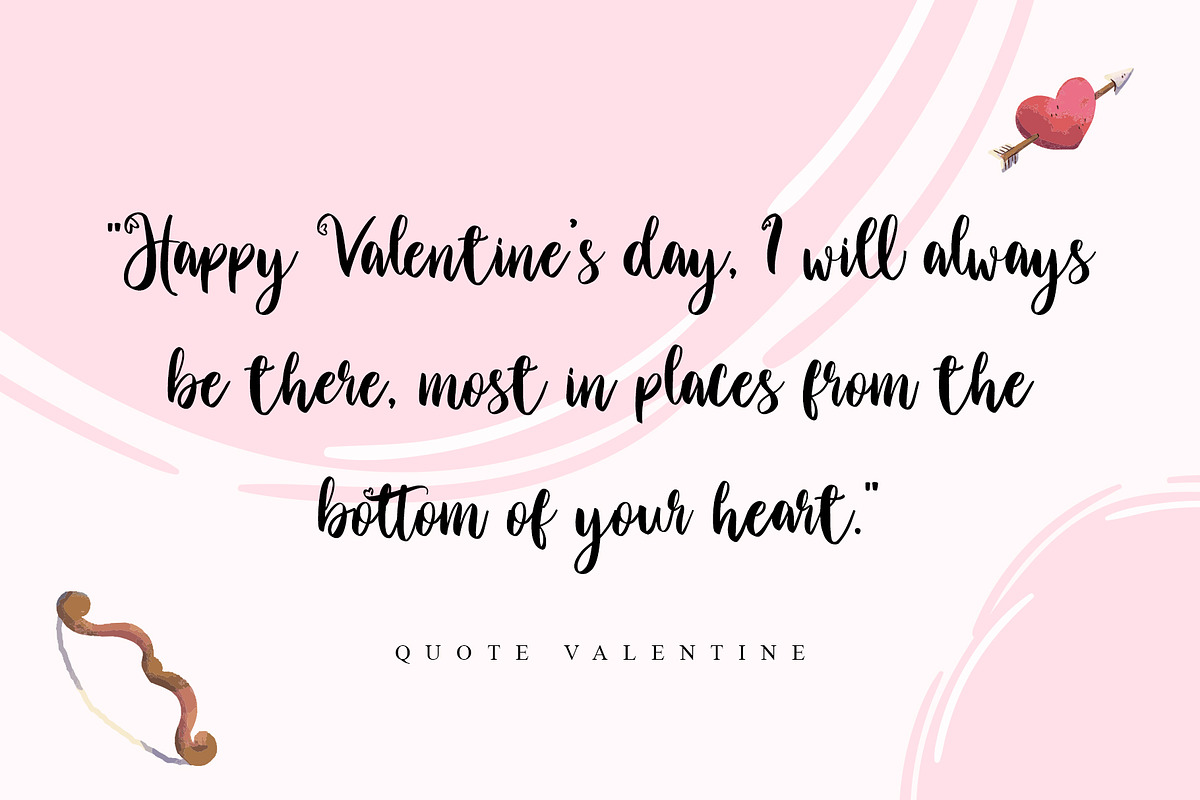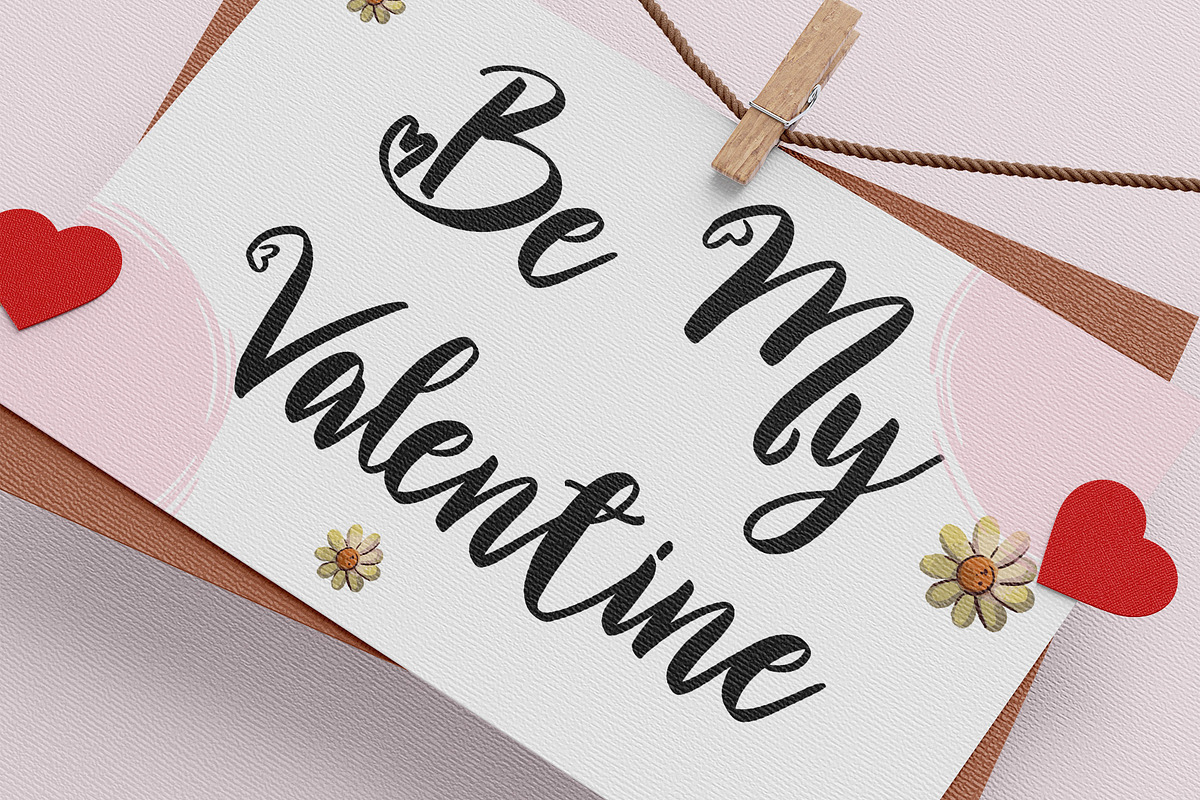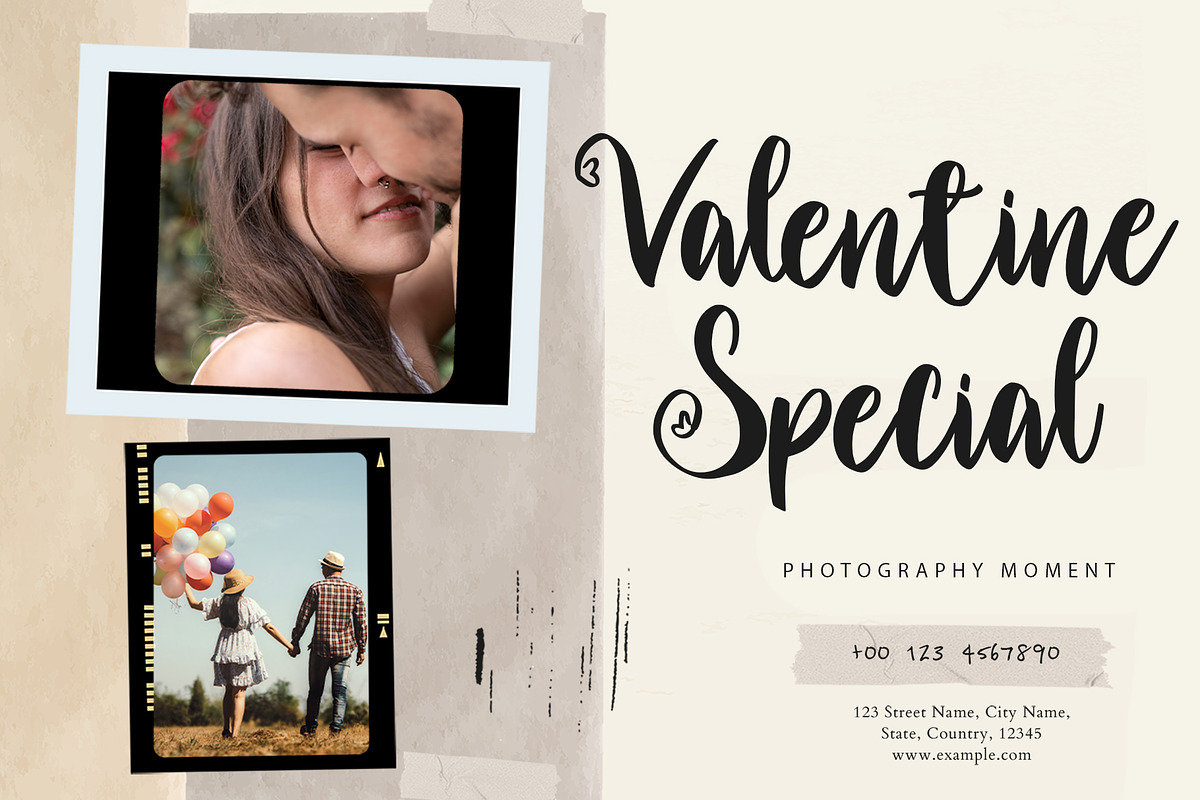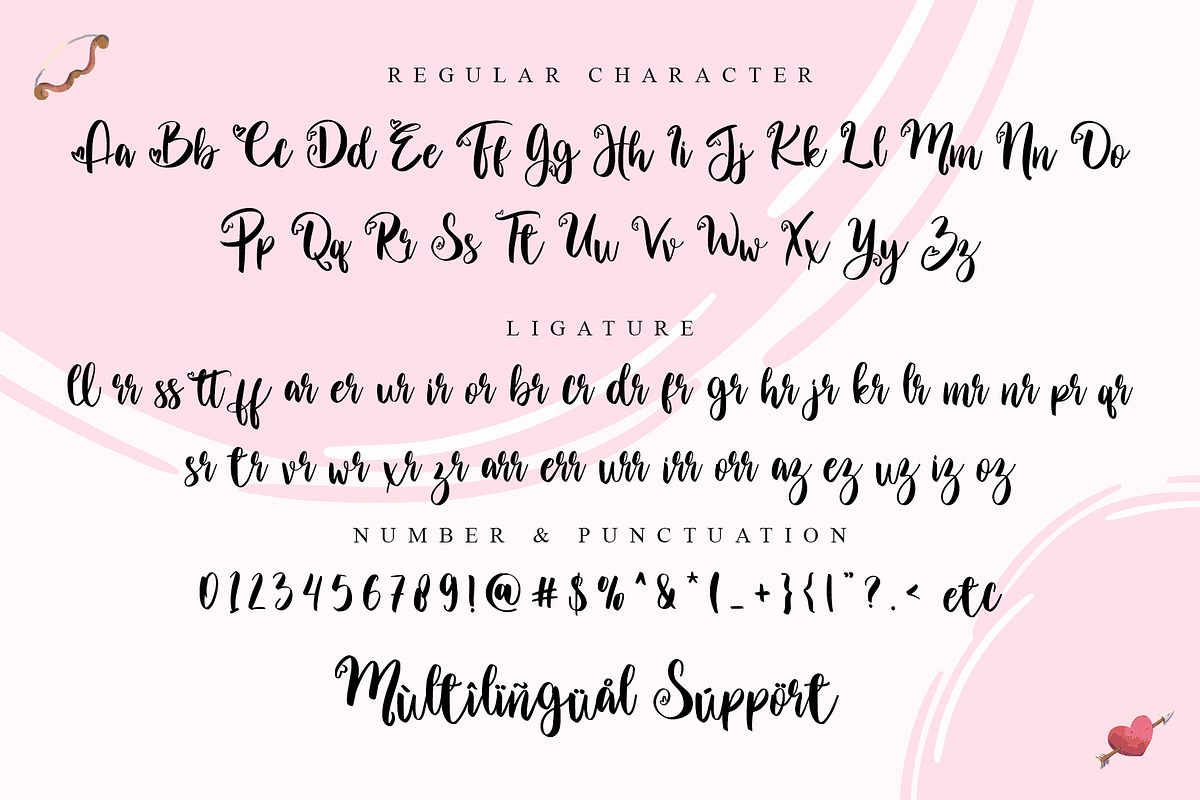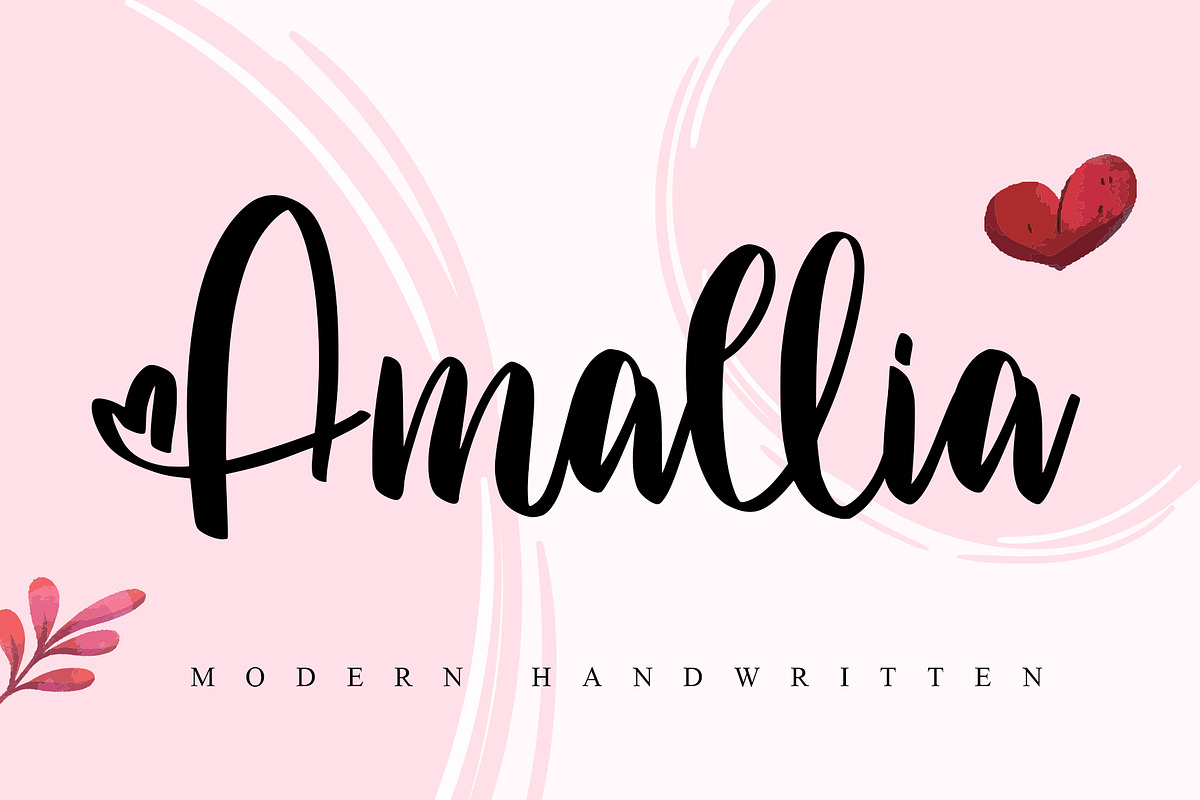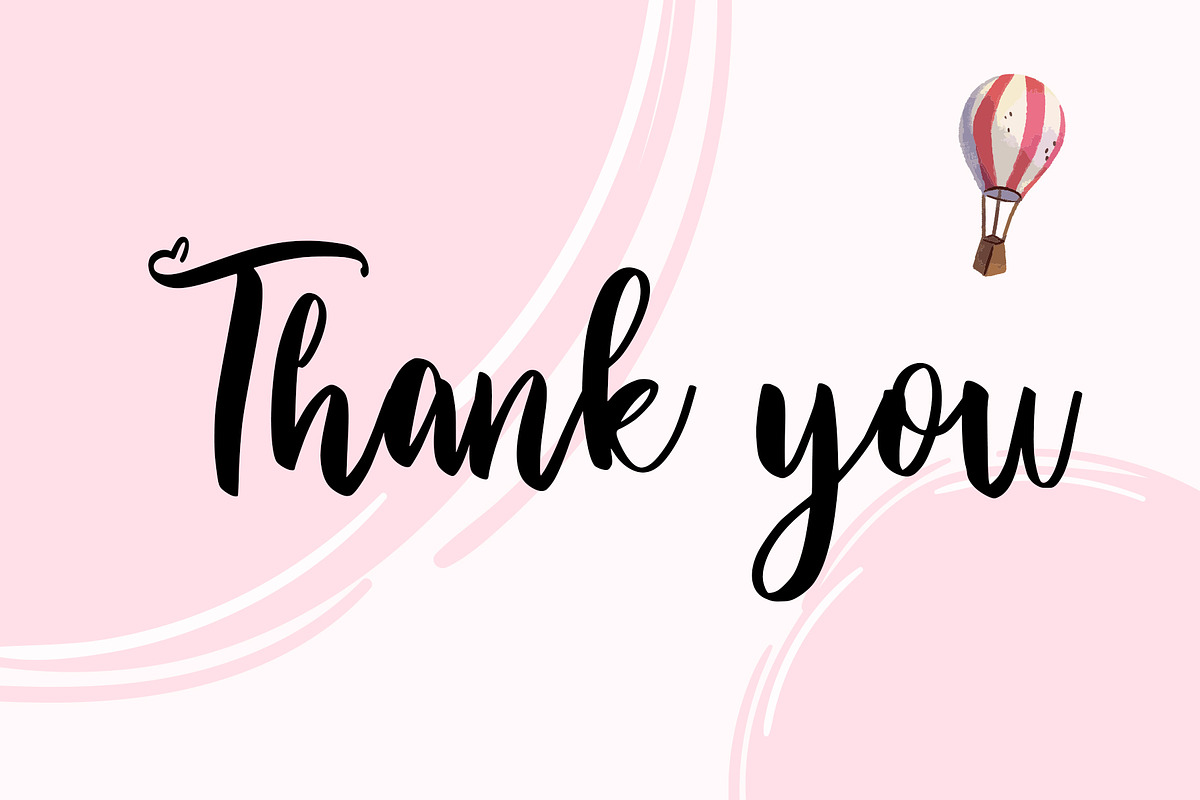
Ammallia
Ammallia is an enchanting handwritten font. elaxed and friendly, this font was created for various designs that require a romantic and beautiful natural touch. This Font is perfect for many different projects such as logos & branding, invitations, birthday party, valentine, fashion, wedding, advertising, apparel, covers, books, business cards, greeting cards, branding, merchandise, invitations and handmade quotes, and more. Add it confidently to your projects, and you will love the results.
- Support multilingual; ä ö ü Ä Ö Ü ß ¿ ¡
- lowercase and uppercase letters